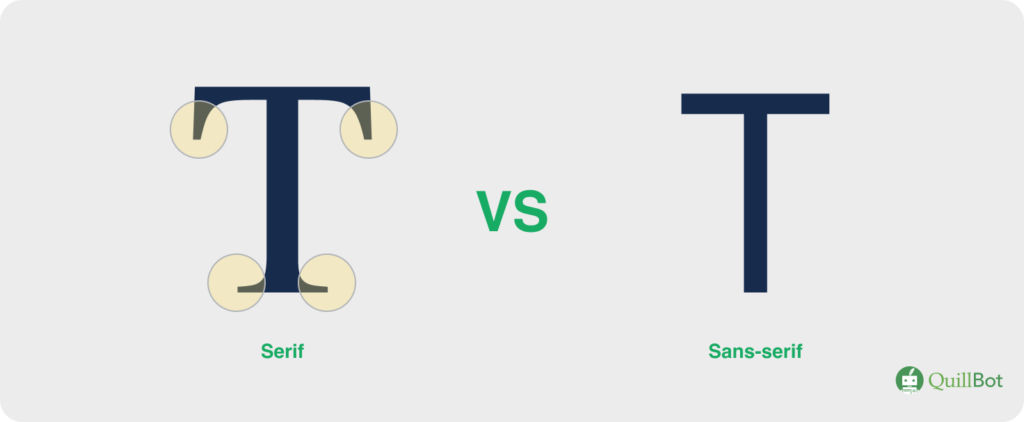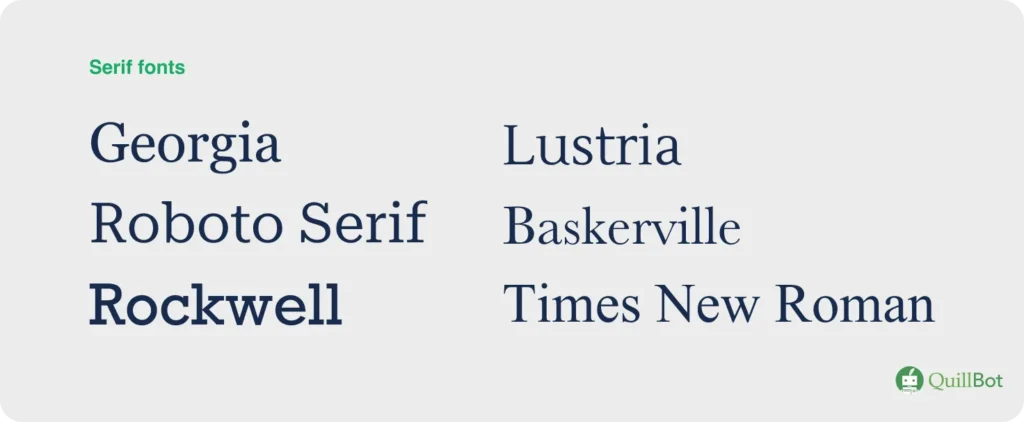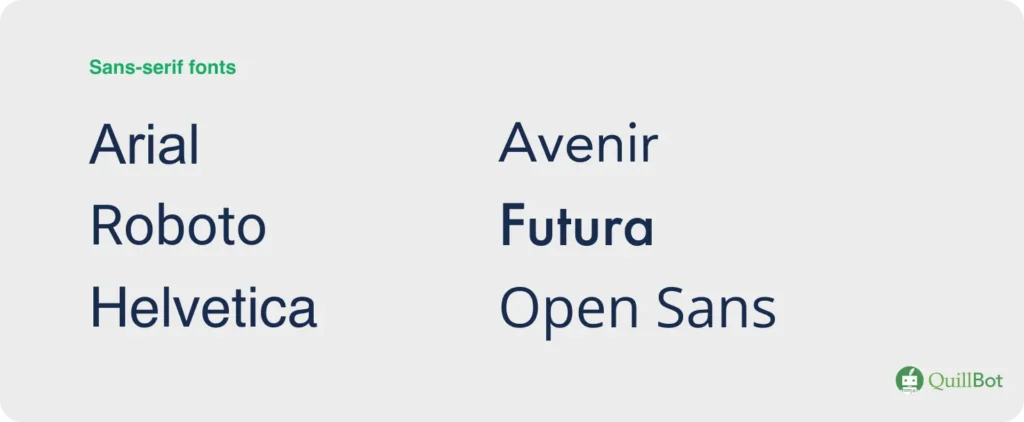
Serif vs Sans Serif Fonts | Differences & Examples
One of the most basic typography decisions you’ll have to make is whether to use a serif vs. sans serif font. This decision might seem trivial—serifs are, after all, just the tiniest of lines that cap the ends of letters—but their presence or absence can profoundly impact how your document, logo, or ad is perceived and the message it sends.
Serif vs sans serif font differences
The distinction between serif and sans serif fonts comes down to serifs. These are the small, decorative strokes that cap the ends of letters in fonts like Times New Roman. Serif fonts have them, and sans serif fonts do not. “Sans” is French for “without,” so “sans serif” directly translates to “without serif.”
Serif vs. sans serif fonts
The history of the serif
Serif fonts are old, dating back to ancient Greek and Roman times. One theory about their origin is based on how words were carved into stone: painters first painted the words, then carvers would follow the brushstrokes to etch the letters. These brushstrokes flared at the ends, resulting in serifs.
Sans serif fonts are generally considered a more recent creation, though they are found in some ancient writing, like Norse runes. They were quite controversial when first introduced in the late 1800s (they were even called “grotesque”), but sans serif fonts gradually became accepted as a modern alternative to serif fonts. Sans serif fonts are very common on digital displays, as some screens lack the resolution to render the fine details of serifs.
Which is easier to read?
A key consideration when selecting a font is readability. However, there’s mixed evidence as to whether serif vs. sans serif fonts are easier to read. Some claim that serifs aid in distinguishing letters; others note that they increase visual clutter, especially at small font sizes. Importantly, there are no scientific studies that conclusively demonstrate that either serif or sans serif fonts are best for reading paragraphs of text.
So what should you do? If readability is a key concern for you (which it should be, if you’re trying to create accessible content!), choosing a serif versus sans serif font isn’t going to be your most important decision. Instead, focus on the size, spacing, and contrast of your text; the right balance of these elements will have the biggest impact.
When to use serif vs sans serif fonts
If choosing a serif or sans serif font isn’t going to make or break the readability of your text, does it even matter which one you pick? Of course!
Serif and sans serif fonts each convey a distinct message and tone. Serif fonts are rooted in antiquity, so they convey a sense of authority and tradition. Sans serif fonts, on the other hand, feel lighter and more modern. Your choice of one or the other will send an implicit message about how you want your content to be perceived.
Here are just a few examples of use cases where serif or sans serif fonts might be a better choice:
- The logo for a new tech startup: A sans serif font is the obvious choice here to convey a sense of innovation and minimalism.
- A pamphlet for a high-end law firm: Here, a serif font will help convey that the firm is established and trustworthy.
- The cover of a design magazine: Sans serif fonts were “avant garde” when they came out, so they would be a strong option. However, a serif font might make sense for a more luxurious, timeless style.
Examples
There are scores of examples of serif and sans serif fonts. Below are a few for you to try in your next project.
Serif font examples
These timeless typefaces are great examples of serif fonts.
Serif fonts
Sans serif font examples
For a more modern feel, try these sans serif fonts.
Sans serif fonts
Frequently asked questions about serif vs sans serif fonts
- What are sans-serif vs serif fonts?
-
The distinction between serif vs. sans-serif fonts is a core principle of typography.
Serif fonts have small decorative strokes that cap each letter, called serifs. A common serif font is Times New Roman.
Sans-serif fonts (from the French “sans,” meaning “without) do not have serifs. A common sans serif font is Arial.
Serif fonts convey tradition and authority, whereas sans-serif fonts have a more modern feel.
- What is a serif font?
-
A serif font is a typeface that has small decorative lines (called “feet”) at the end of each stroke in a letter. The most common serif font is Times New Roman.
Serif fonts are common in print media (e.g., books and magazines), where they’re more reader-friendly. For example, lowercase letter A is much more distinct from lowercase letter O in a serif font.
Both can work, but sans-serif fonts are usually the safer choice for presentations. Their clean, simple shapes stay crisp on screens and projectors, making them easier to read from a distance. Serif fonts can still be effective for titles or more formal topics, but thin serifs may disappear on low-resolution displays.